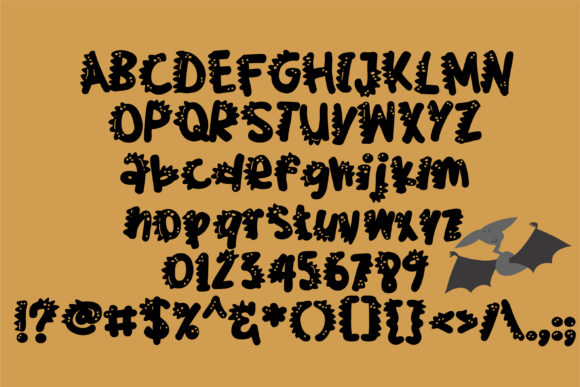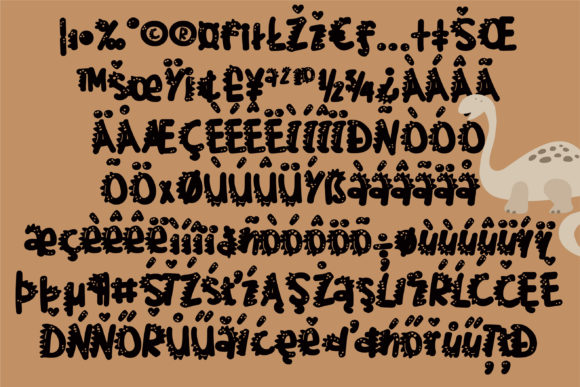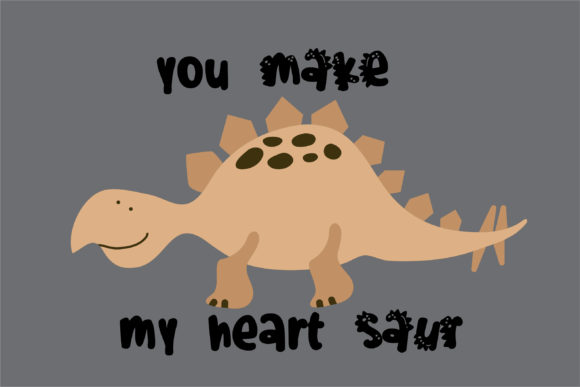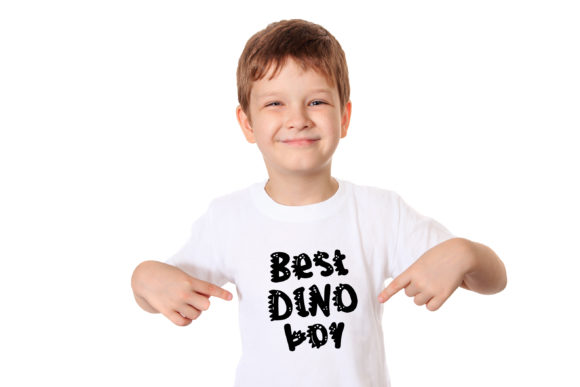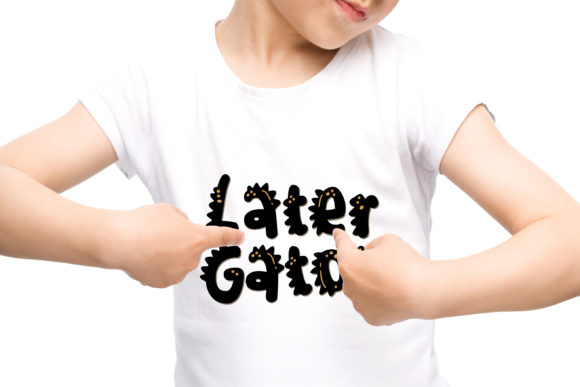
Dino Writer Font: Add a Prehistoric Touch to Your Designs
Are you tired of using the same old fonts in your designs? Do you want to add a playful and whimsical touch to your creations? Look no further than the Dino Writer Font! This stunning display font is perfect for designers and crafters who want to make their work stand out from the crowd.
What is Dino Writer Font?
Dino Writer is a unique and eye-catching font that features letters with a joyful twist. Each letter has been designed with a cute and whimsical touch, sporting dino or alligator spikes that add a fun and playful element to your designs. Whether you’re working on a project for a children’s book, a craft tutorial, or a fun DIY project, this font is sure to delight.
Key Features of Dino Writer Font
- Unique Lettering Style: Each letter in the Dino Writer Font has been carefully crafted with a dino or alligator spike design, making it a one-of-a-kind font that’s sure to grab attention.
- Cute and Whimsical: The font has a playful and fun vibe that’s perfect for designs that require a lighthearted touch.
- Display Font: Dino Writer is a display font, making it ideal for headlines, titles, and other prominent text elements in your designs.
Who Can Benefit from Using Dino Writer Font?
The Dino Writer Font is perfect for a variety of designers and crafters, including:
- Graphic Designers: Add a fun and playful touch to your designs with this unique font.
- Crafters: Use the Dino Writer Font to create fun and eye-catching titles for your craft tutorials, blog posts, and social media content.
- Children’s Book Illustrators: This font is perfect for illustrating children’s books, adding a playful and imaginative touch to your storybook characters.
- DIY Enthusiasts: Use the Dino Writer Font to create fun and creative DIY project titles, signs, and labels.
How to Use Dino Writer Font in Your Designs
Using the Dino Writer Font in your designs is easy! Here are a few tips to get you started:
- Pair it with Other Fonts: Pair the Dino Writer Font with other fonts to create a unique and eye-catching combination.
- Use it for Headlines: Use the Dino Writer Font for headlines and titles to add a playful touch to your designs.
The Dino Writer Font is a fun and unique font that’s perfect for designers and crafters who want to add a playful touch to their work. With its cute and whimsical design, this font is sure to delight audiences of all ages. Whether you’re working on a children’s book, a craft tutorial, or a DIY project, the Dino Writer Font is a great choice. So why not give it a try and see how it can add a prehistoric touch to your designs?
Tips and Variations
To get the most out of the Dino Writer Font, here are a few tips and variations to try:
- Use it for Kids’ Projects: The Dino Writer Font is perfect for kids’ projects, such as birthday cards, party invitations, and educational materials.
- Try Different Colors: Experiment with different colors and textures to add depth and interest to your designs.
- Pair it with Images: Pair the Dino Writer Font with fun and playful images, such as dinosaurs, animals, or cartoon characters.